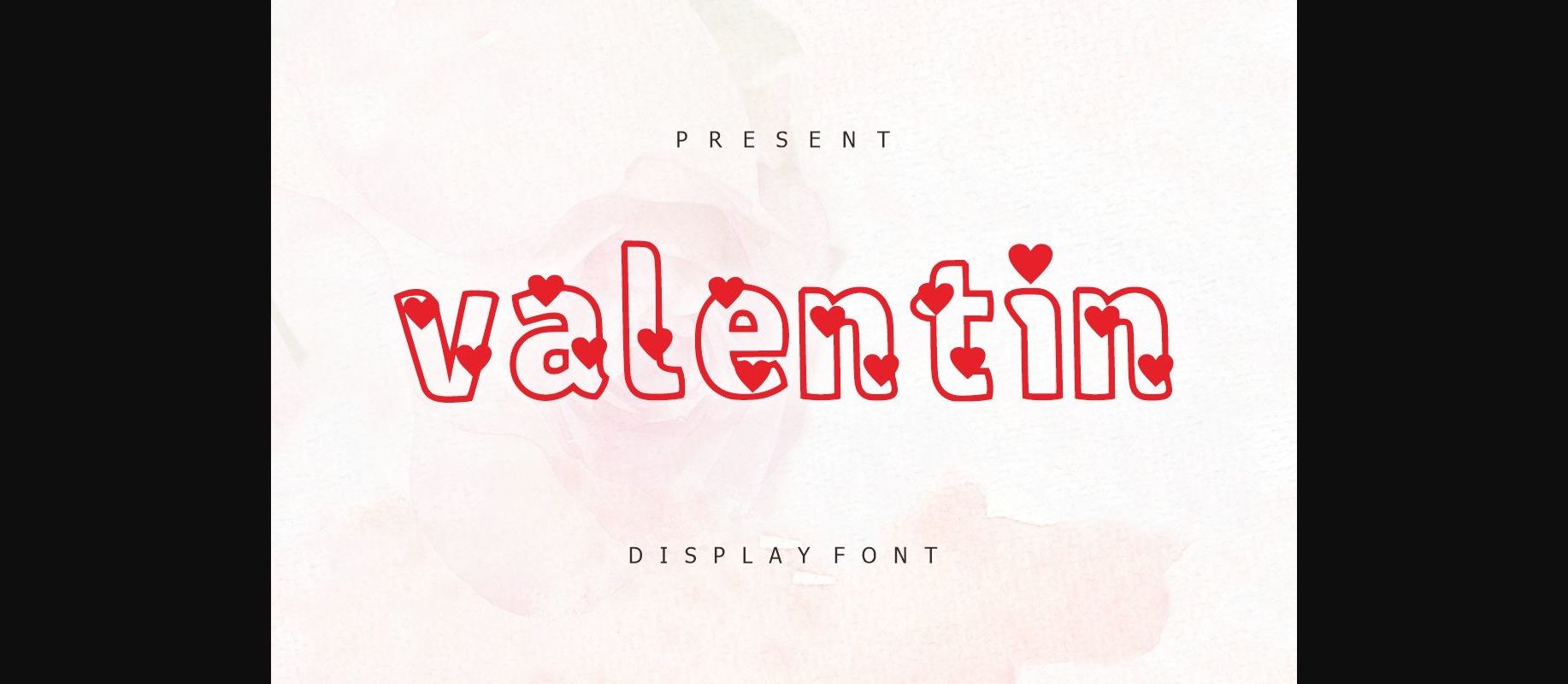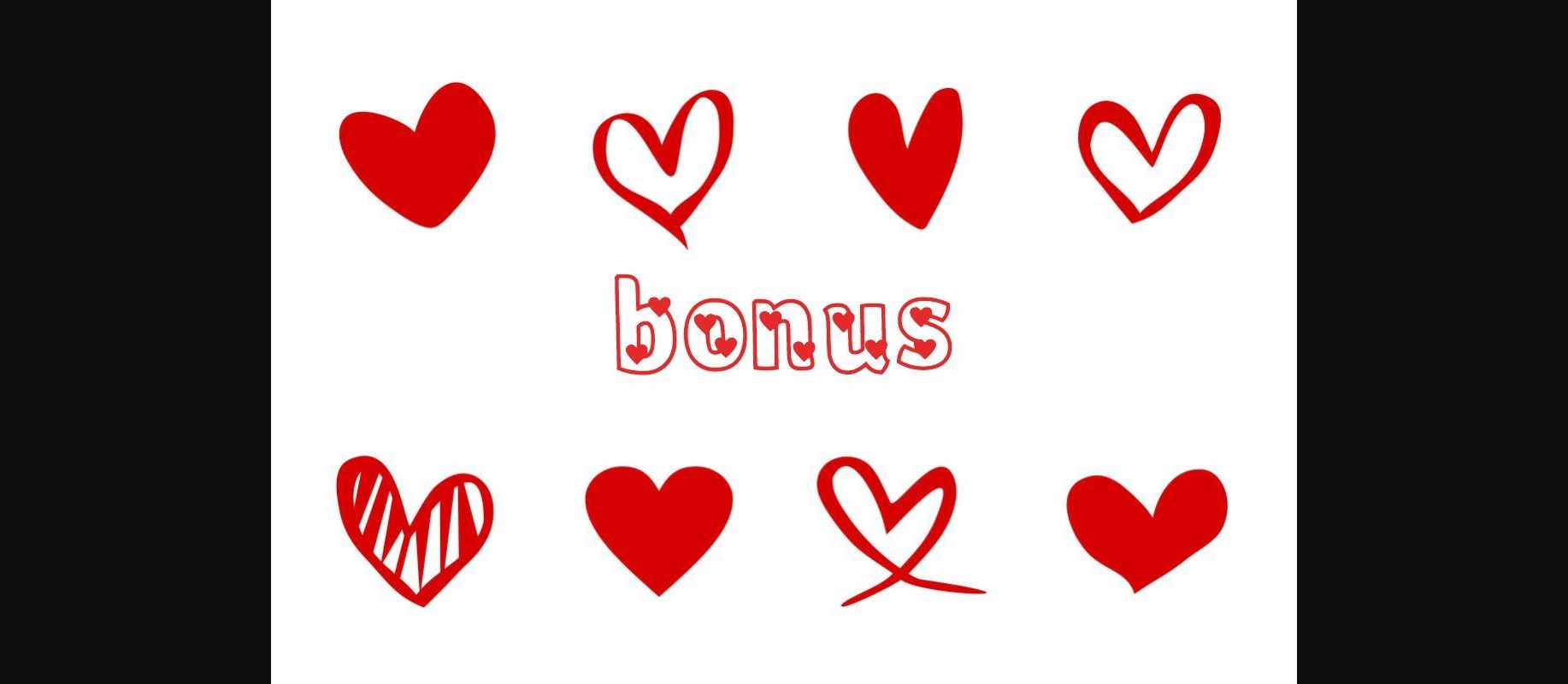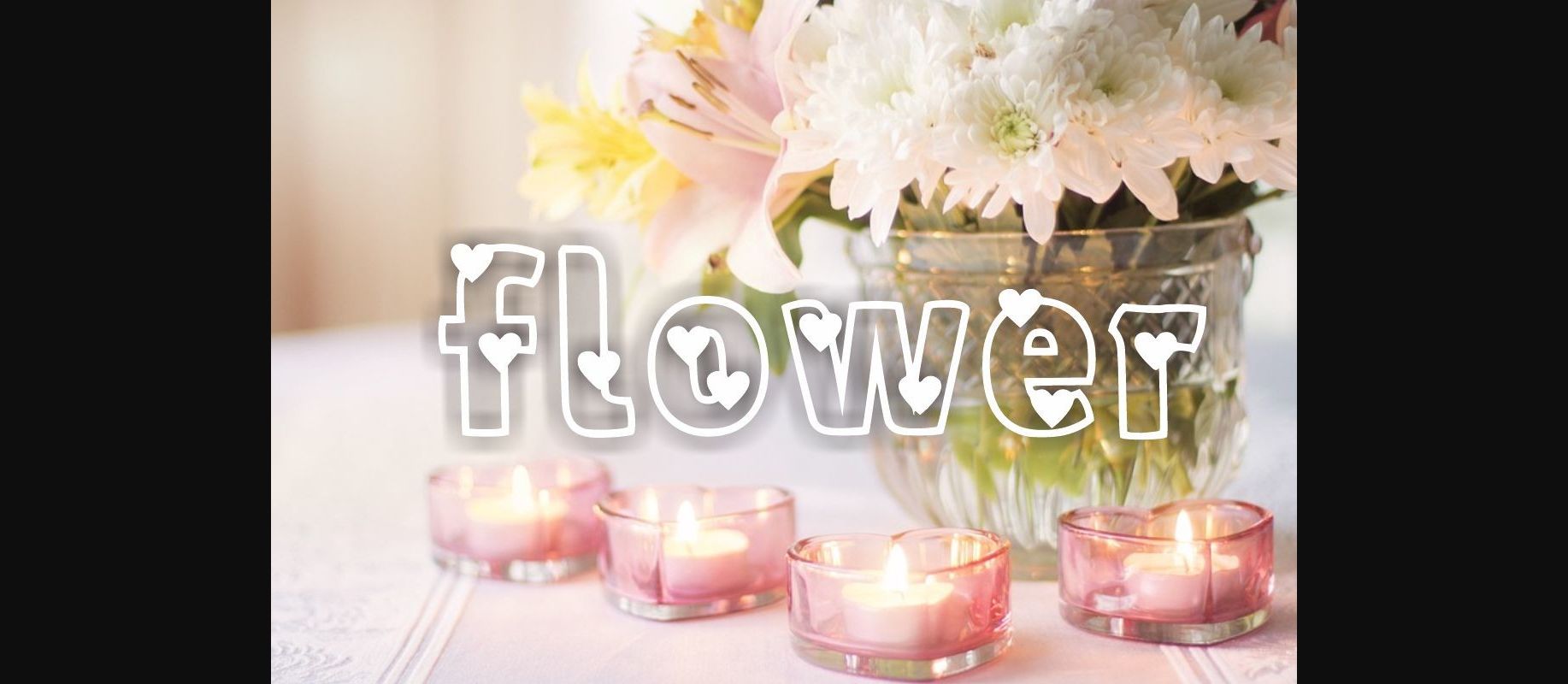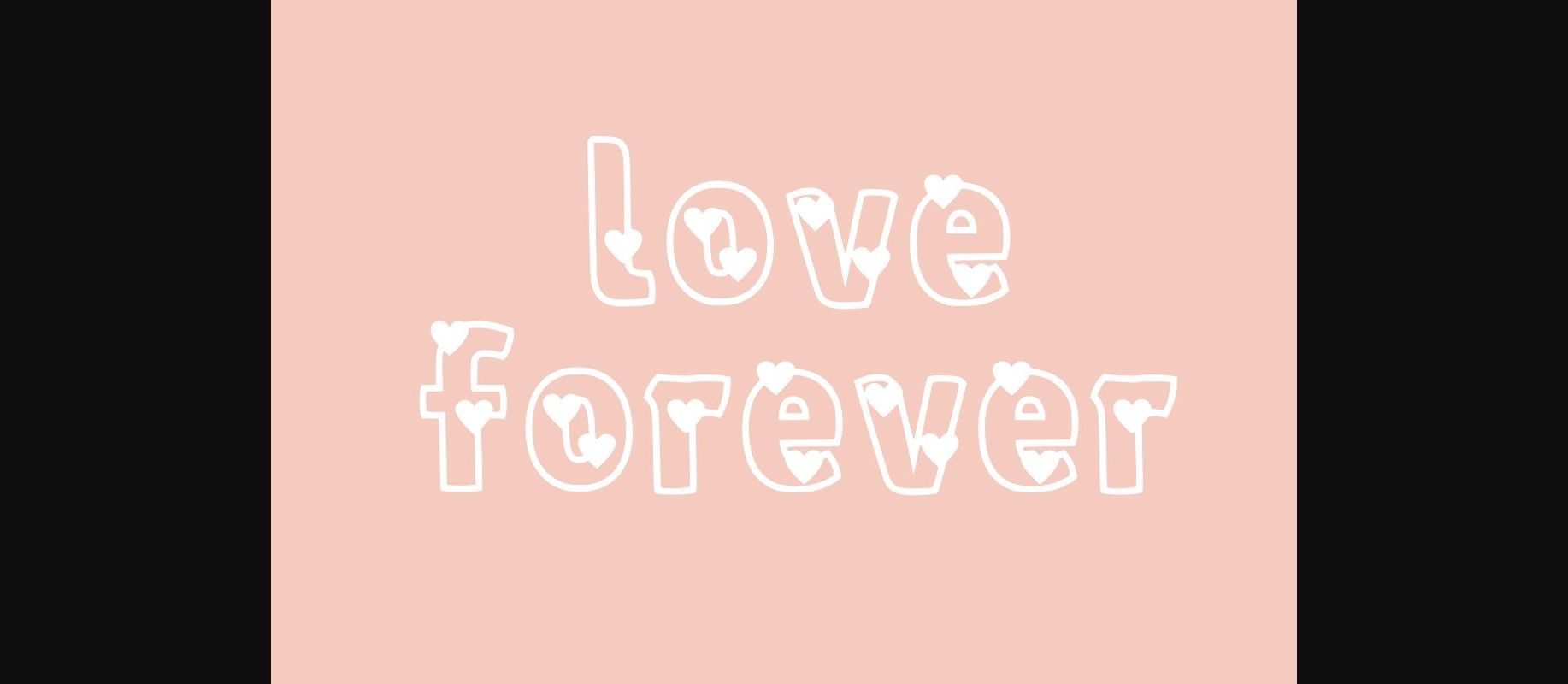
About Valentin Font
Valentin was inspired by playful, loving, bouncy romantic typography. Whether you’re using it for crafts, digital designs, presentations, or making greeting cards, this font has the potential to become your favorite go-to font, no matter the occasion!